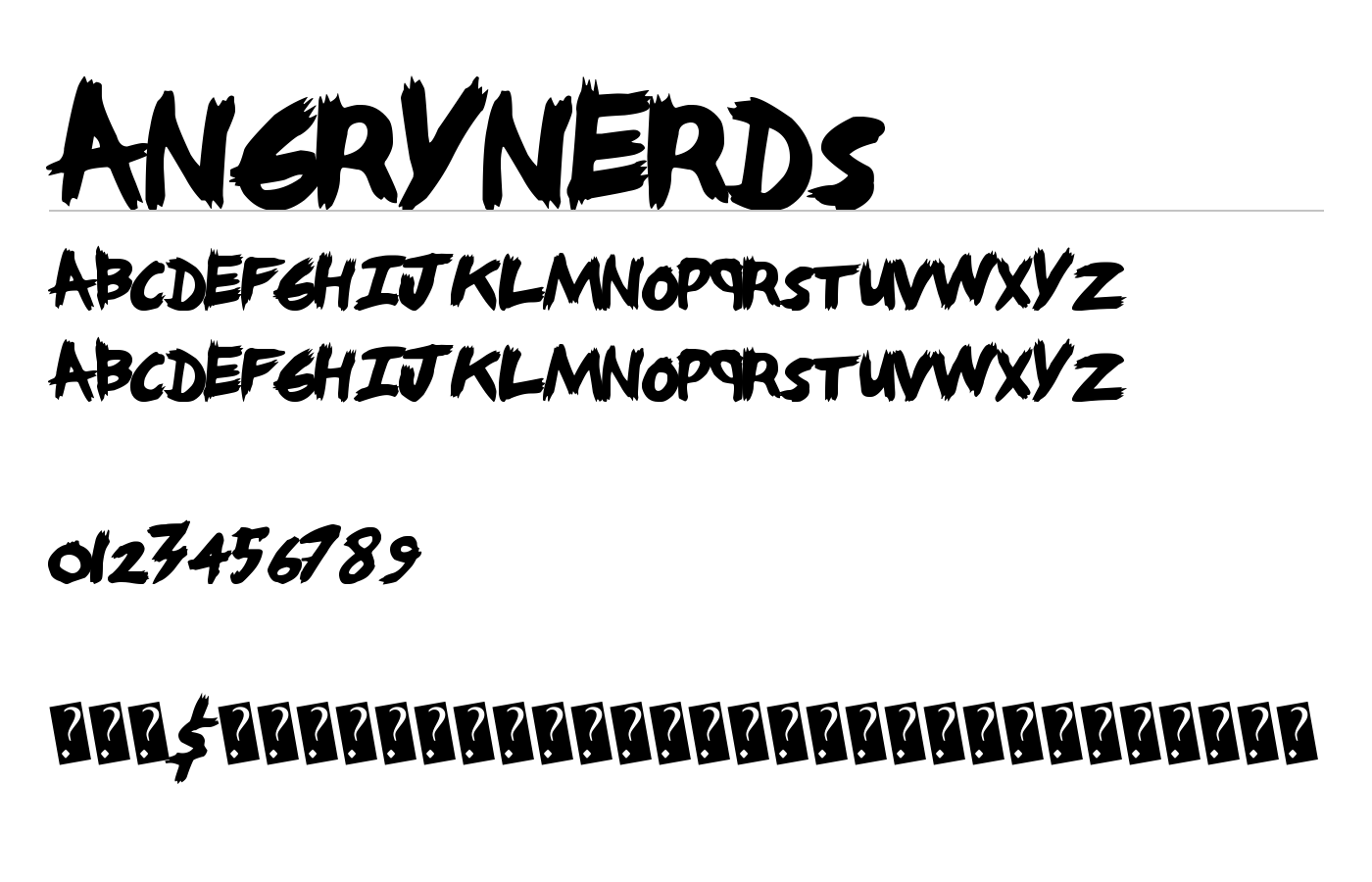
AngryNerds is a bold, expressive display font with a playful, hand-drawn style that looks like energetic brush strokes. Its rough edges and dynamic shapes give it a lively, rebellious personality, making it perfect for eye-catching headlines, posters, or branding that aims to stand out with attitude. This font works especially well in creative, informal contexts where a fun and edgy vibe is desired.
AngryNerds Font
About AngryNerds Font
| Font family | AngryNerds Font |
| Designer | Max Infeld |